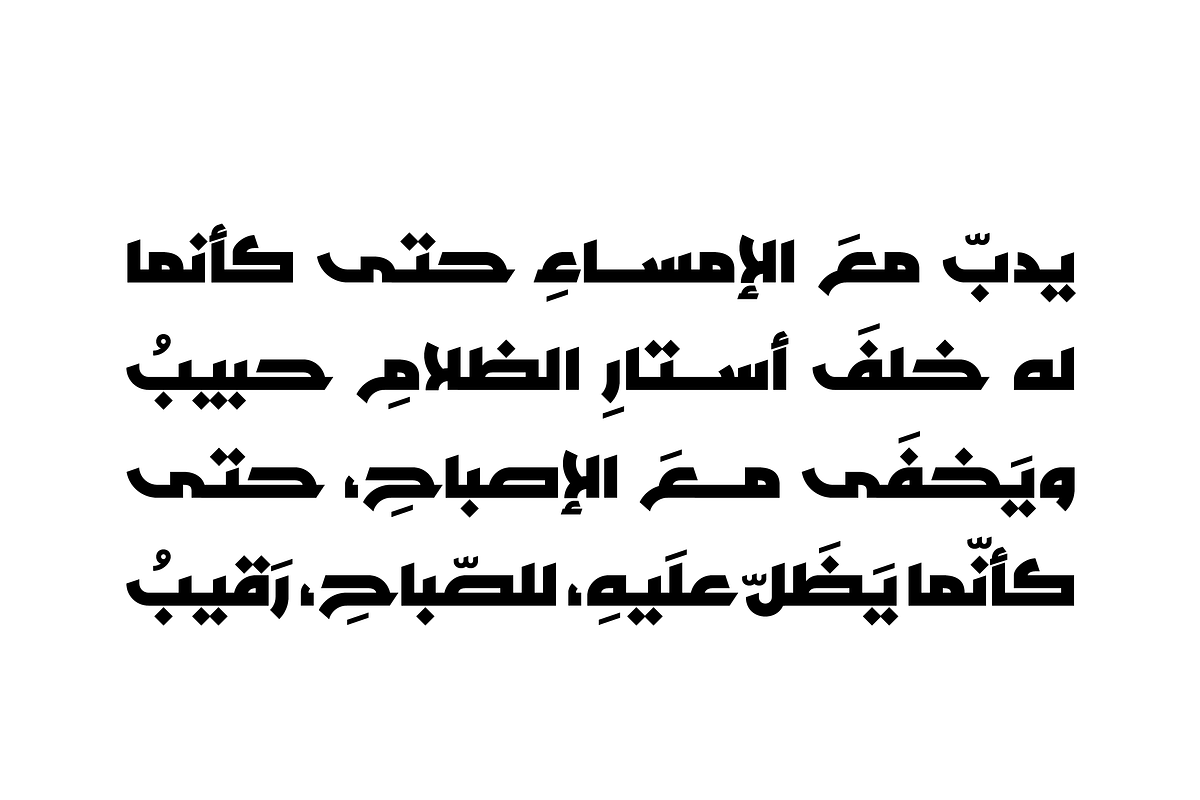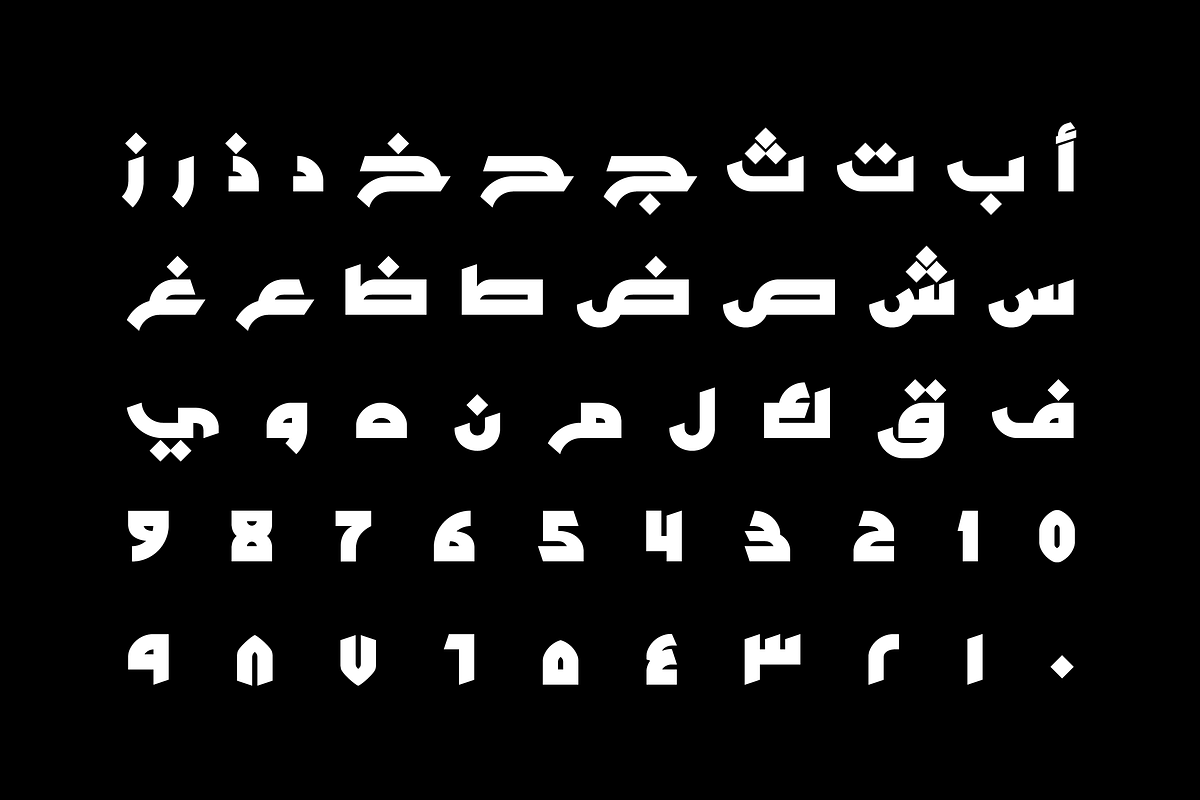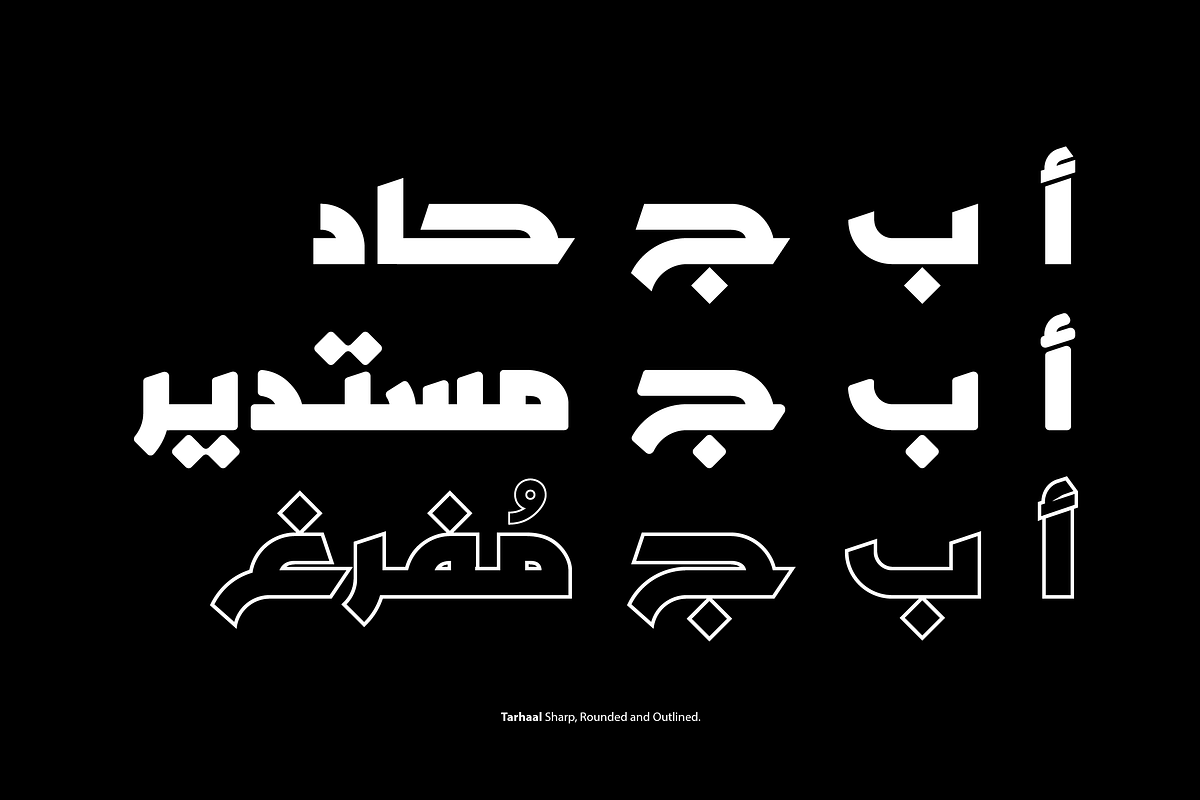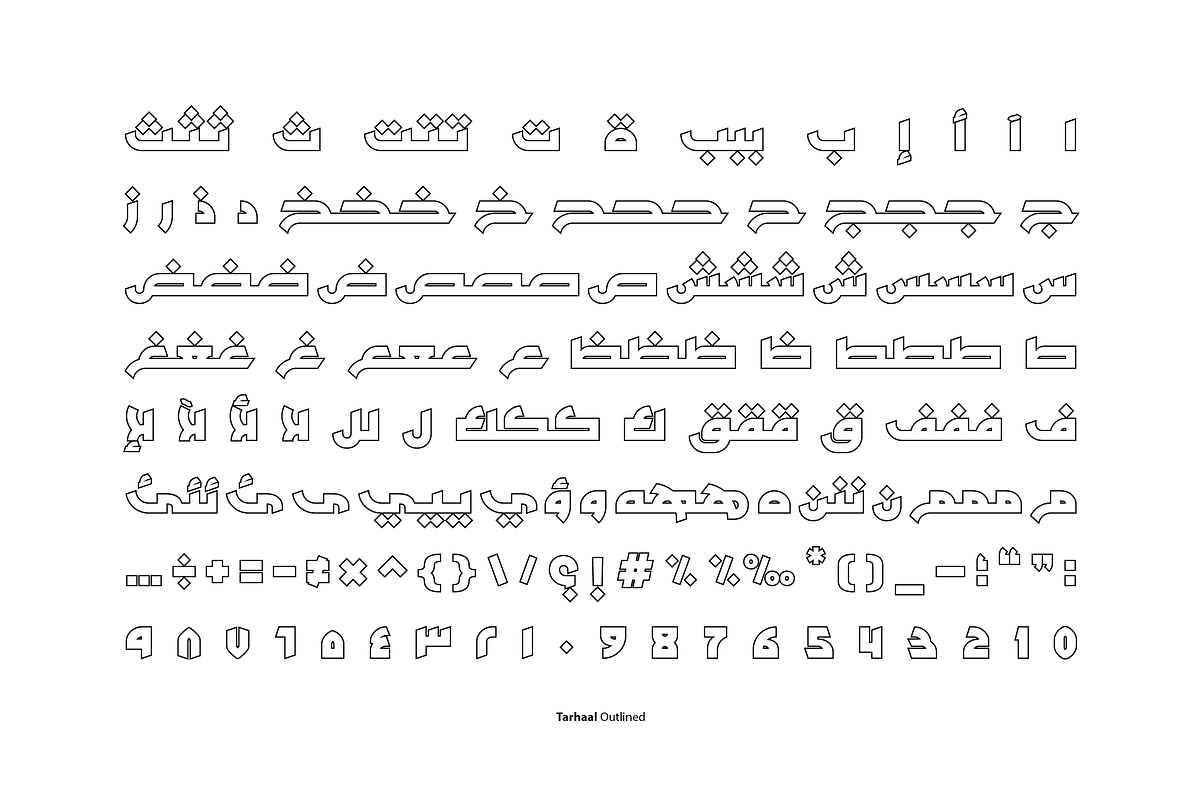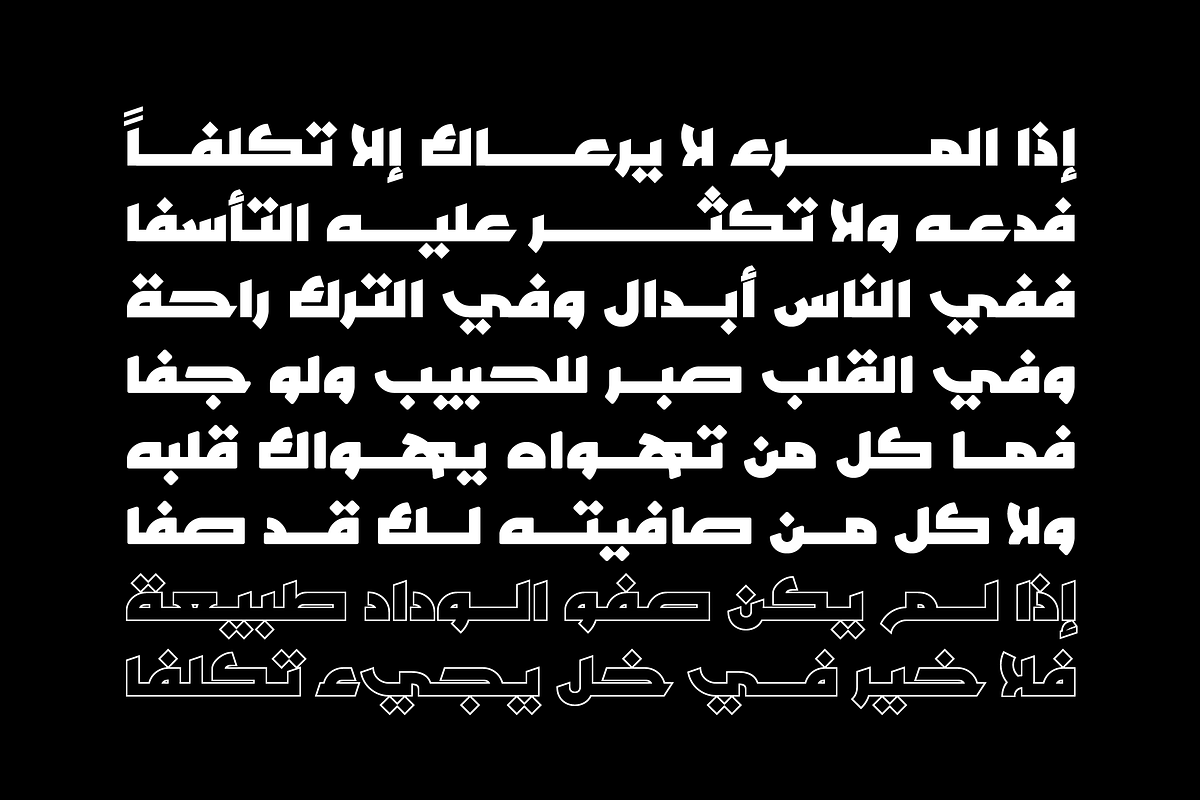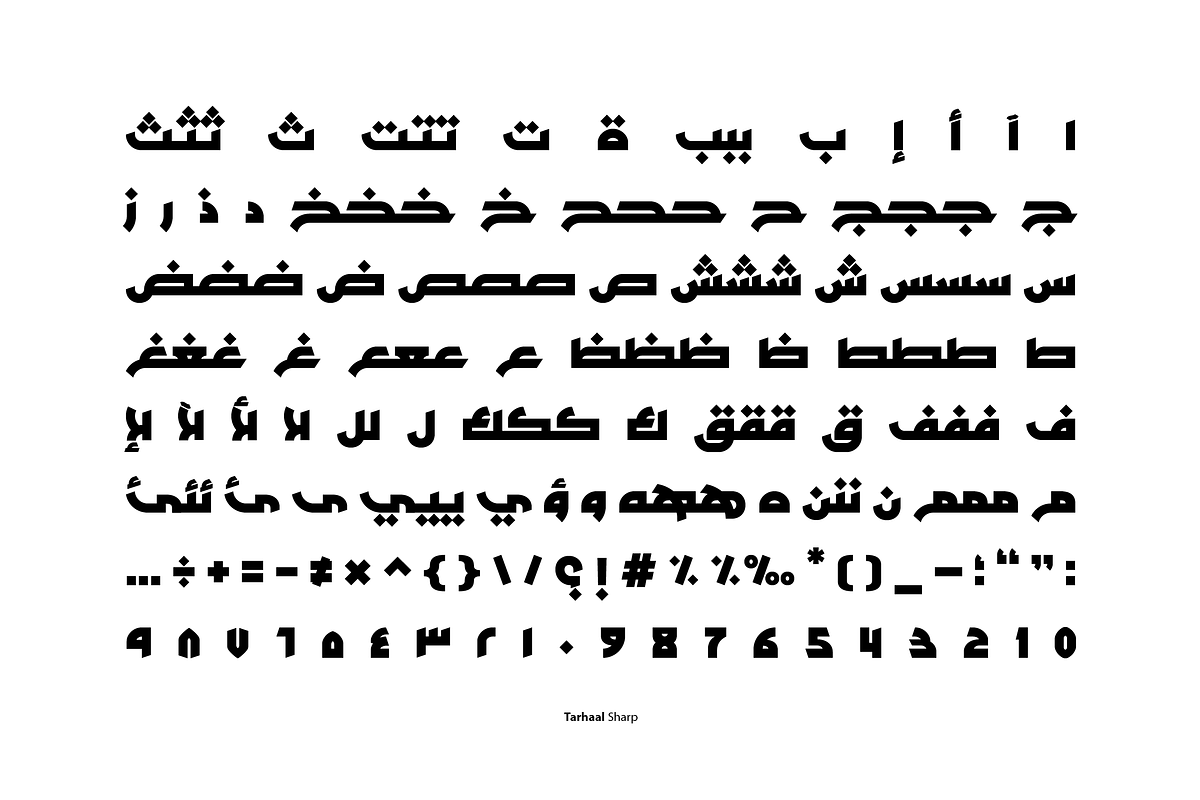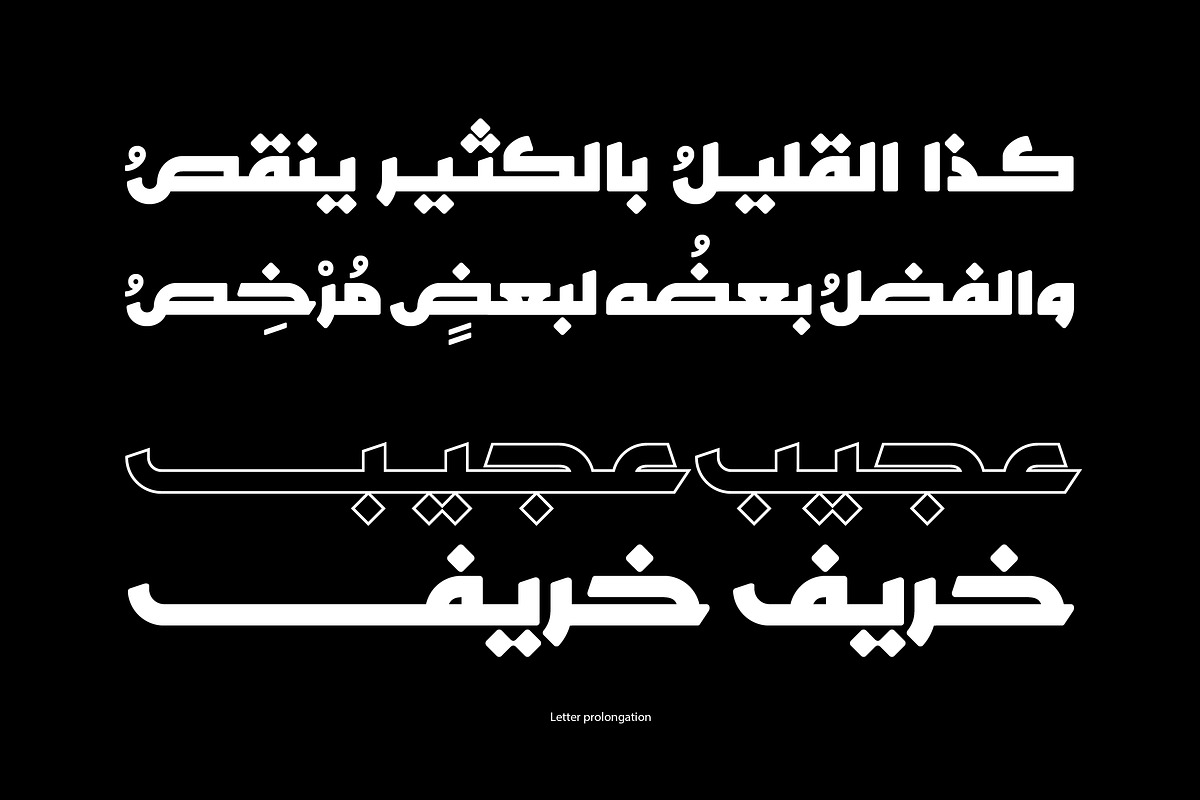
Tarhaal - Arabic Font | خط ترحال
Tarhaal - Arabic Font | خط ترحال by Mostafa El Abasiry is a font selected for branding, posters, packaging, typography.
- Tarhaal Regular
- Tarhaal Outlined
- Tarhaal Rounded
Tarhaal - Arabic Font | خط ترحال by Mostafa El Abasiry fits naturally into Branding, posters, packaging, typography.